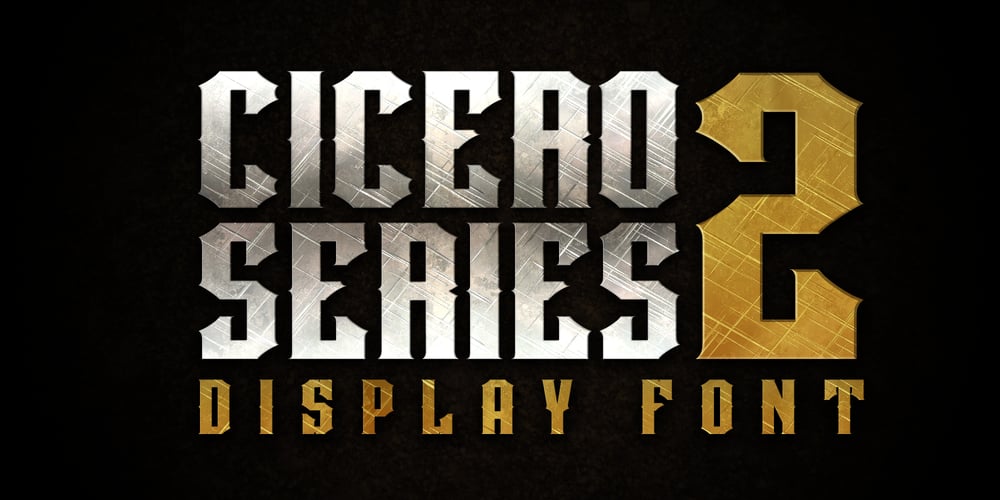
Cicero Series 2 Font Family was designed by Swinn Jonathan and published by Alphabet Agency. Cicero Series 2 contains 1 styles and family package options. Cicero Series 2 is a decorative serif display font that expresses a dominant yet prestigious presence.